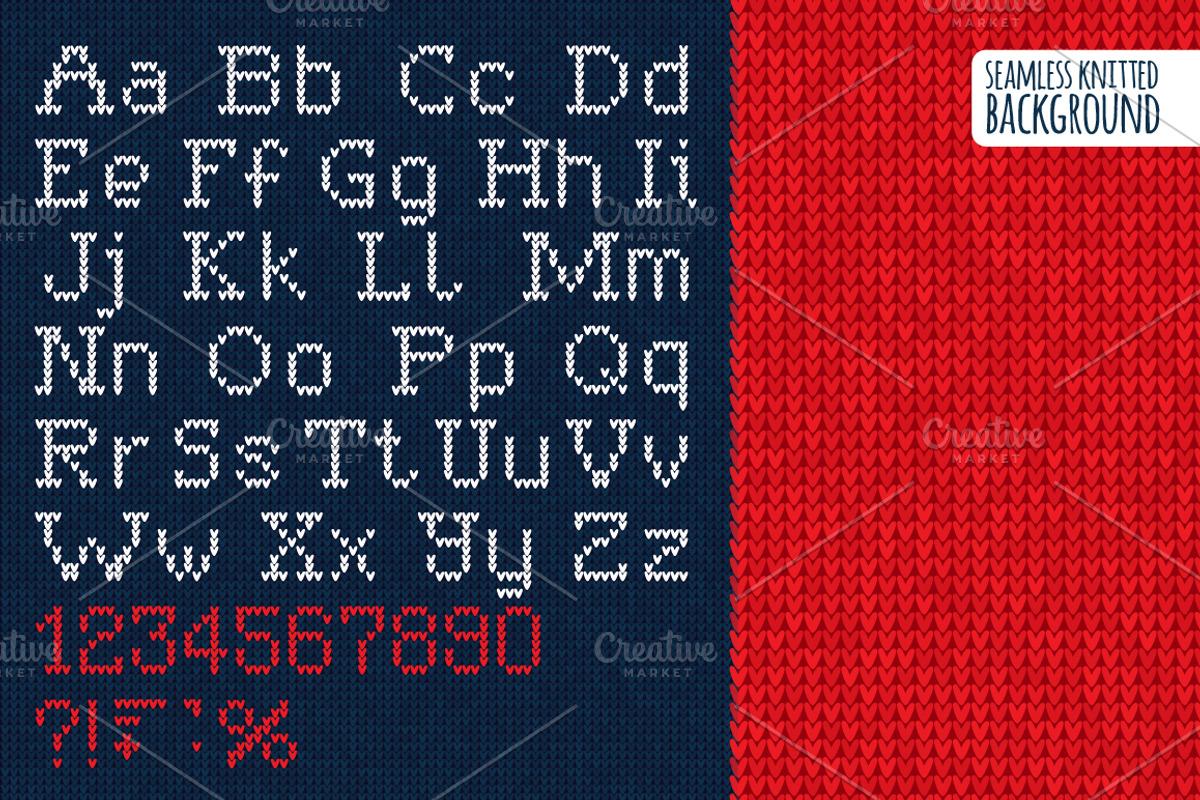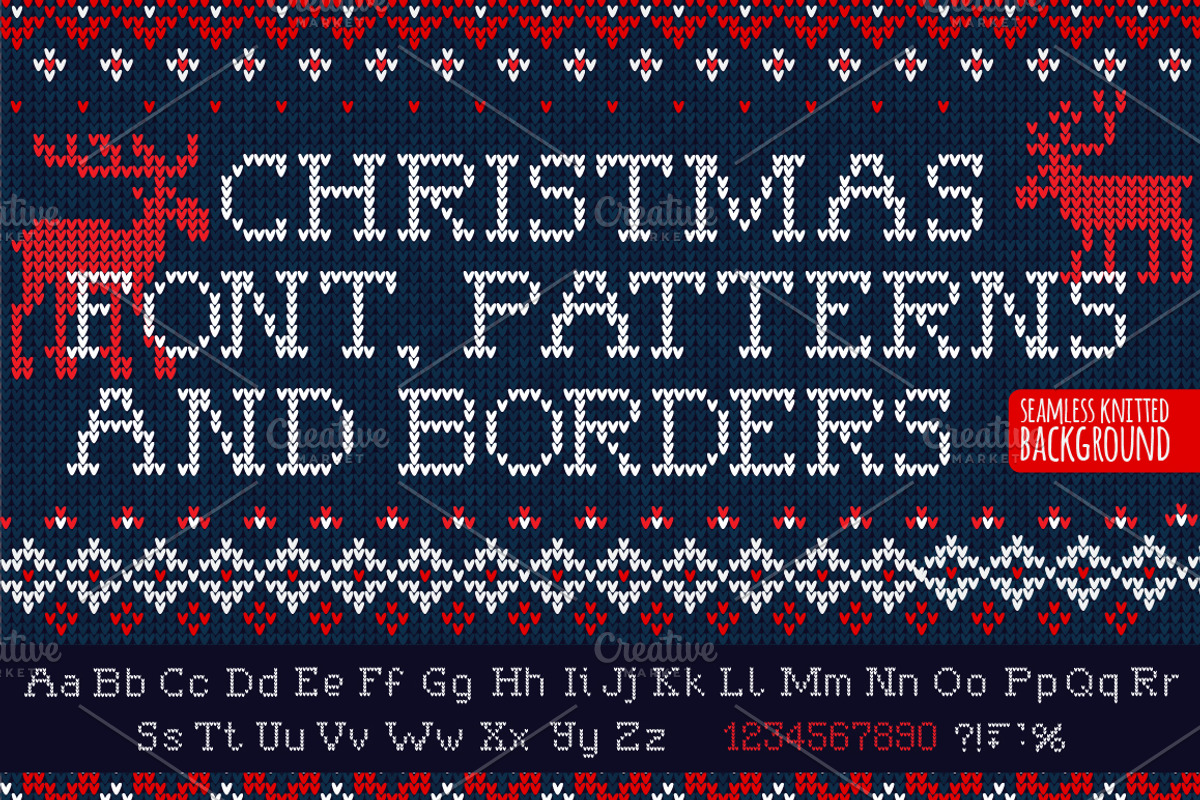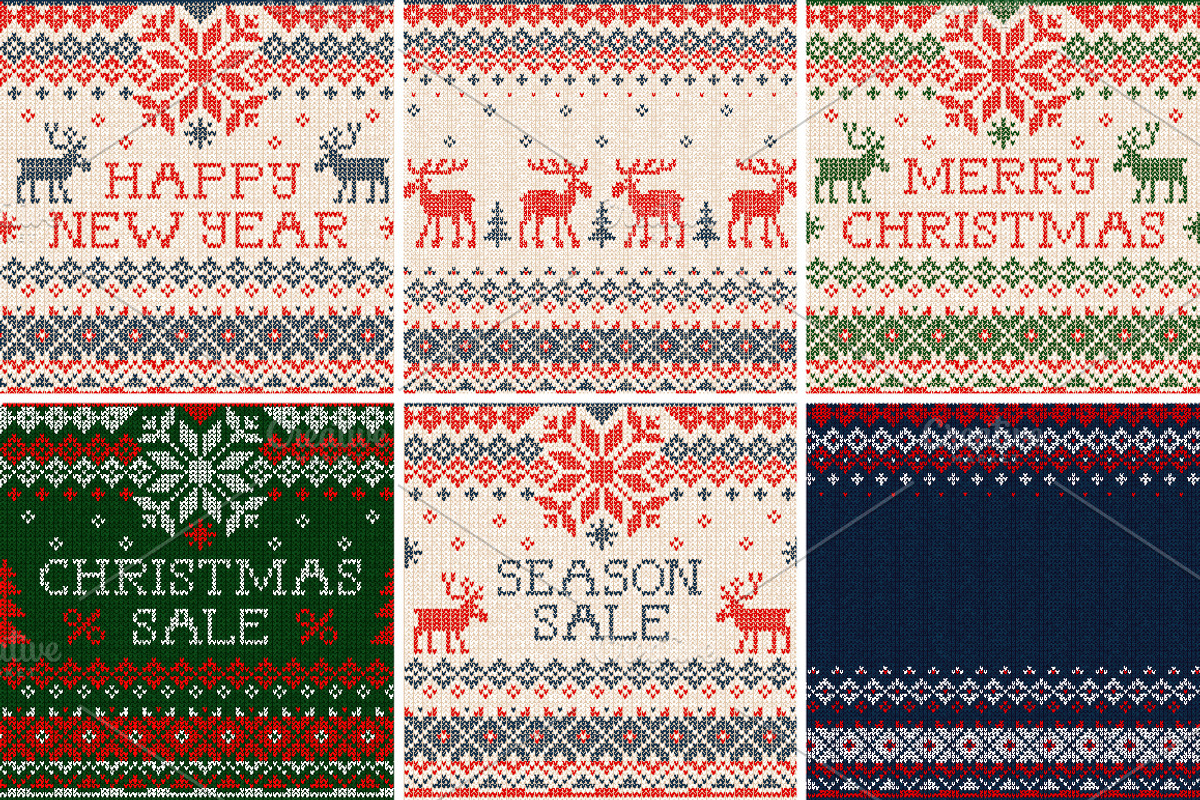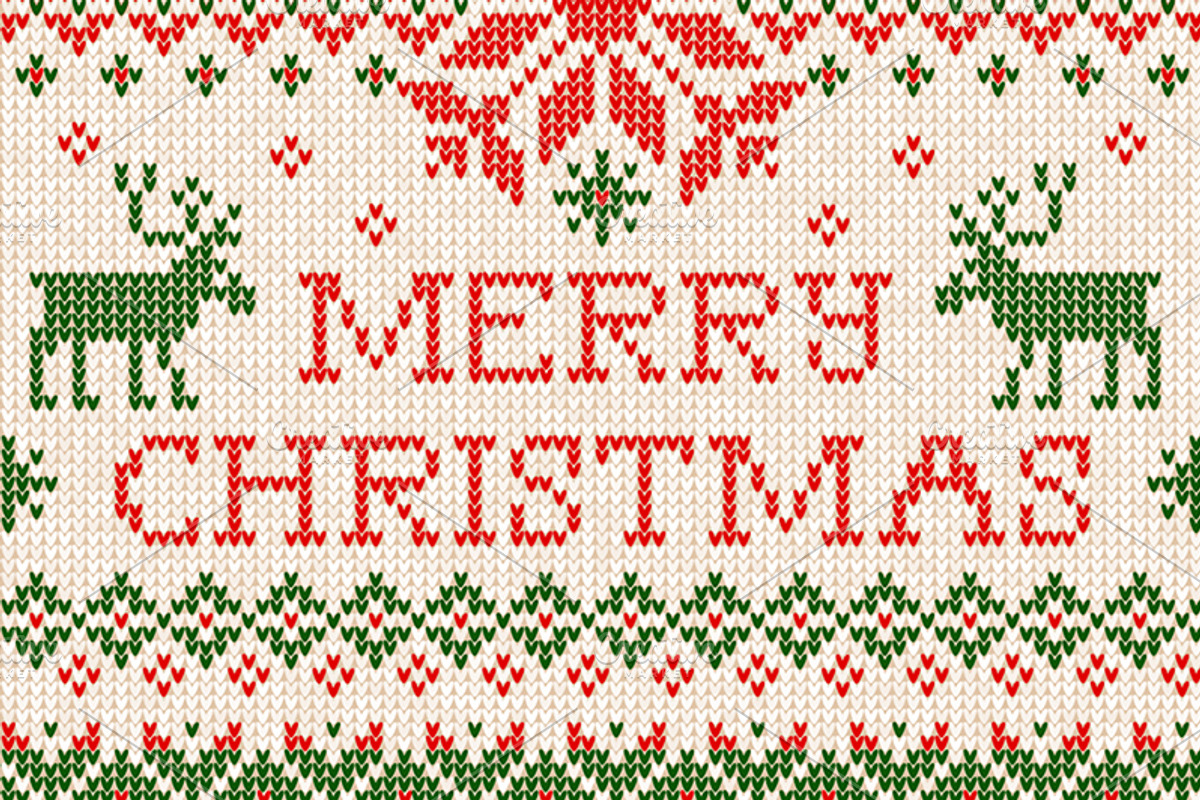
Knitted FONT & patterns (UL)
Christmas Set of knitted FONT, patterns and inscriptions.
Elevate your holiday designs with our "Christmas Set of Knitted Font, Patterns, and Inscriptions". This comprehensive bundle provides you with a delightful assortment of knitted uppercase and lowercase letters, along with numbers, figures, and punctuation marks.
In addition, you'll receive pre-designed inscriptions including "Merry Christmas", "Happy New Year", "Christmas Discount", "Christmas Sale", and "Season Sale" for seamless integration into your projects.
Enhance your creations with our charming Scandinavian-style ornaments featuring whimsical knitted animals, and effortlessly fill large spaces with our seamless knitted backgrounds. The versatility of this set is matched by its quality; all elements are meticulously crafted for a flawless finish.